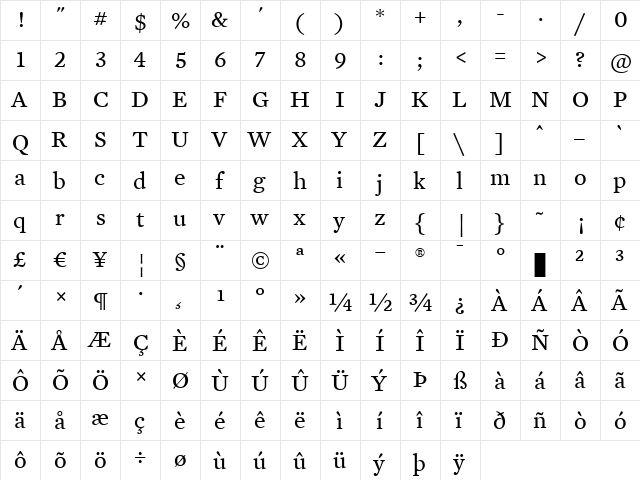
Mercury Text G3 Regular
Design Context for Mercury Text G3 Typeface
Mercury Text G3 is a composed and adaptable typeface that performs quietly and consistently across a wide range of design contexts.